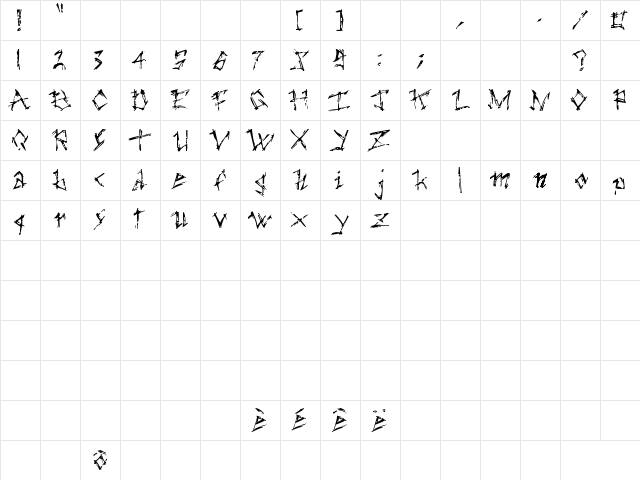
the dark ages Regular
Design Context for the dark ages Typeface
the dark ages is a composed and adaptable typeface that performs quietly and consistently across a wide range of design contexts.